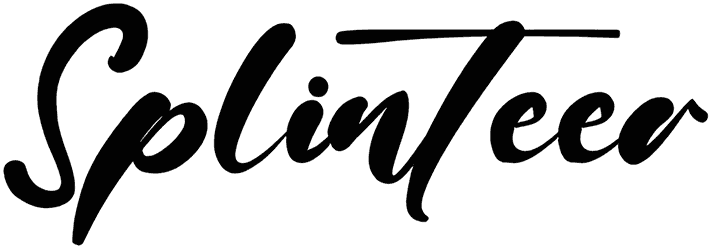
Splinteer Font
The trace of a calligraphy brush with ink on paper always has a nostalgic feeling. That is why Splinteer has been able to open its place among designers and audiences and turn any project, such as custom writing, album cover, and greeting card, into a masterpiece.
This slanted font is exactly what you need to communicate directly with the audience. It has wet letters with normal twists that create a feeling of closeness in the viewer.